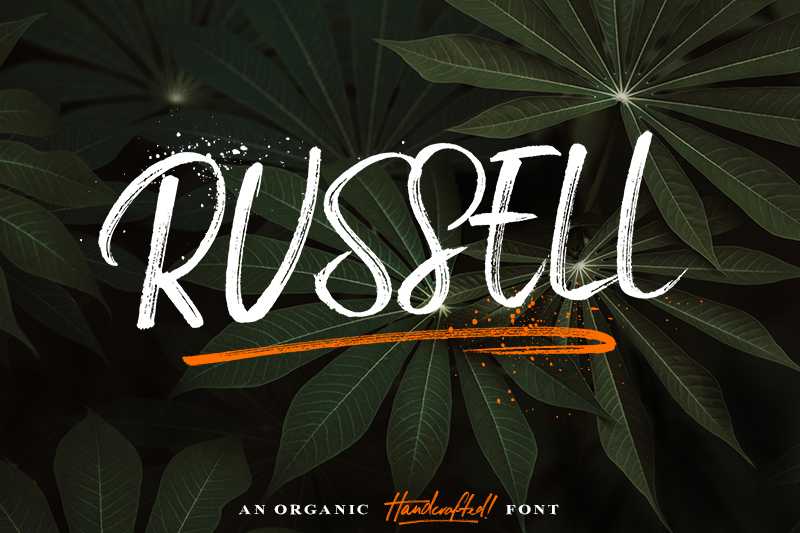
Russell Brush Font
Continue as a font brush designed by Tom Chalky. You will be happy to use it for your work. Introducing Russell Brush Font! An organic and expressive handwritten brush script font designed for versatility. It’s legible; making it perfect for product packaging, editorial work, and poster design, and it oozes personality; great for branding, invitations, and more. This font packs a real punch with super duper textures and a ton of useful extras (that line is certainly getting copyrighted!) including custom catchwords, ink splatters, underlining brush strokes, and italics! Take a look below to see everything that’s included.